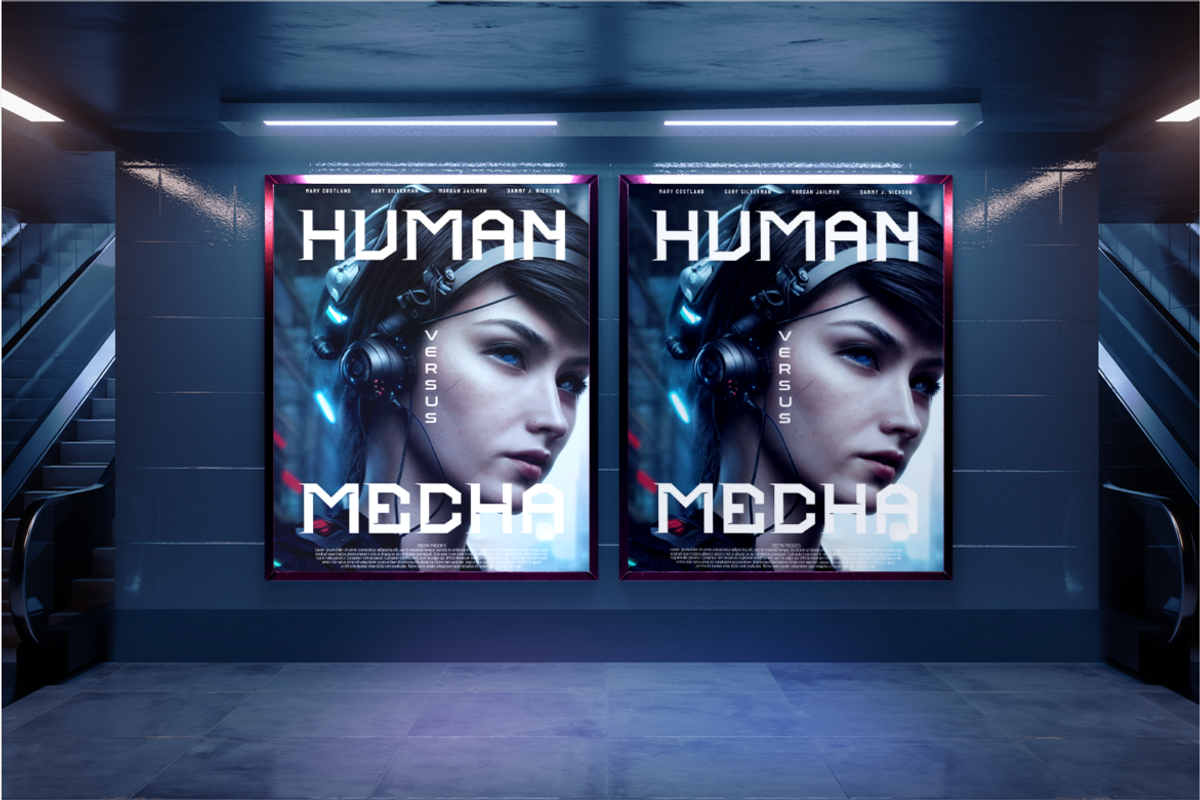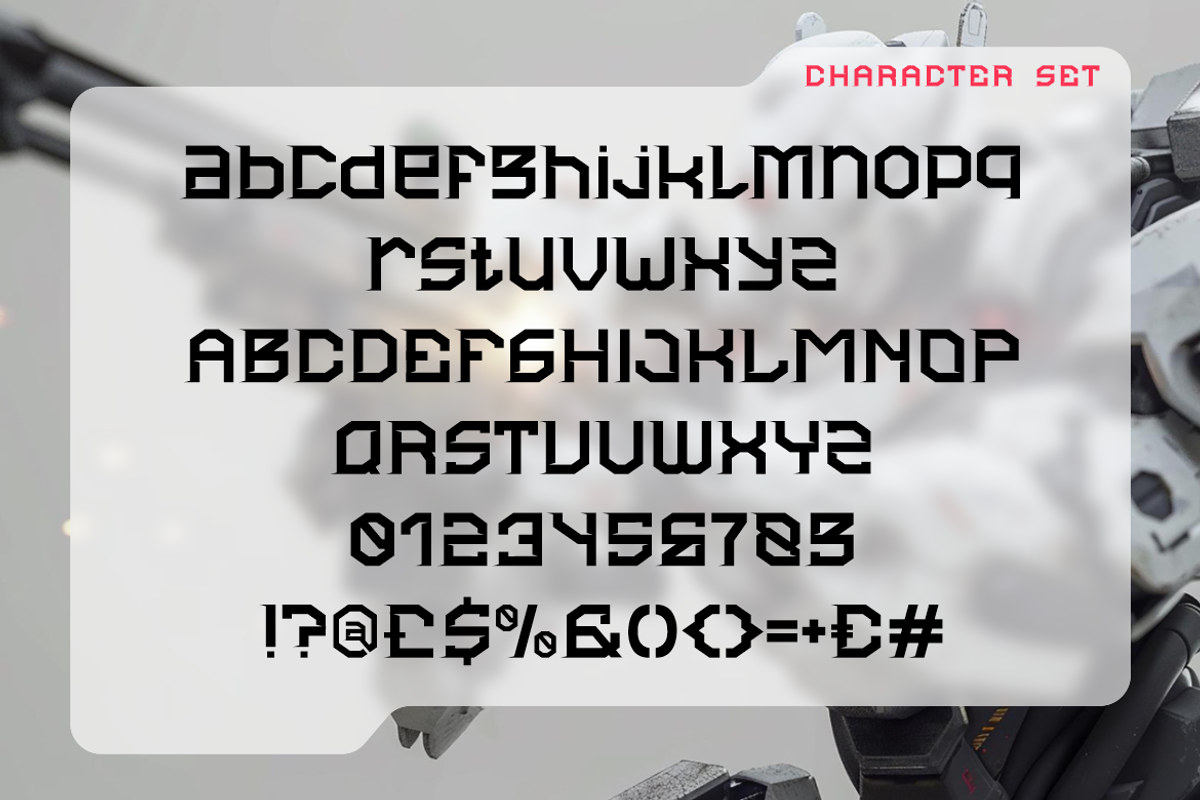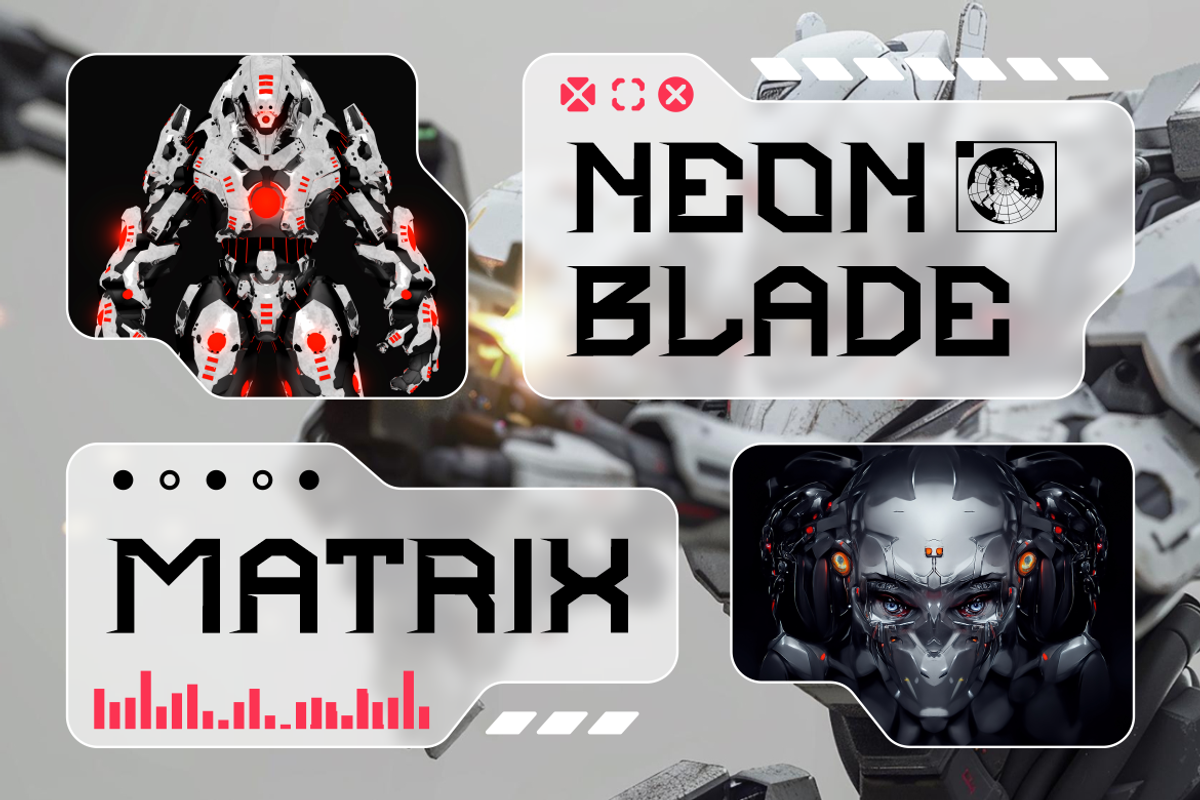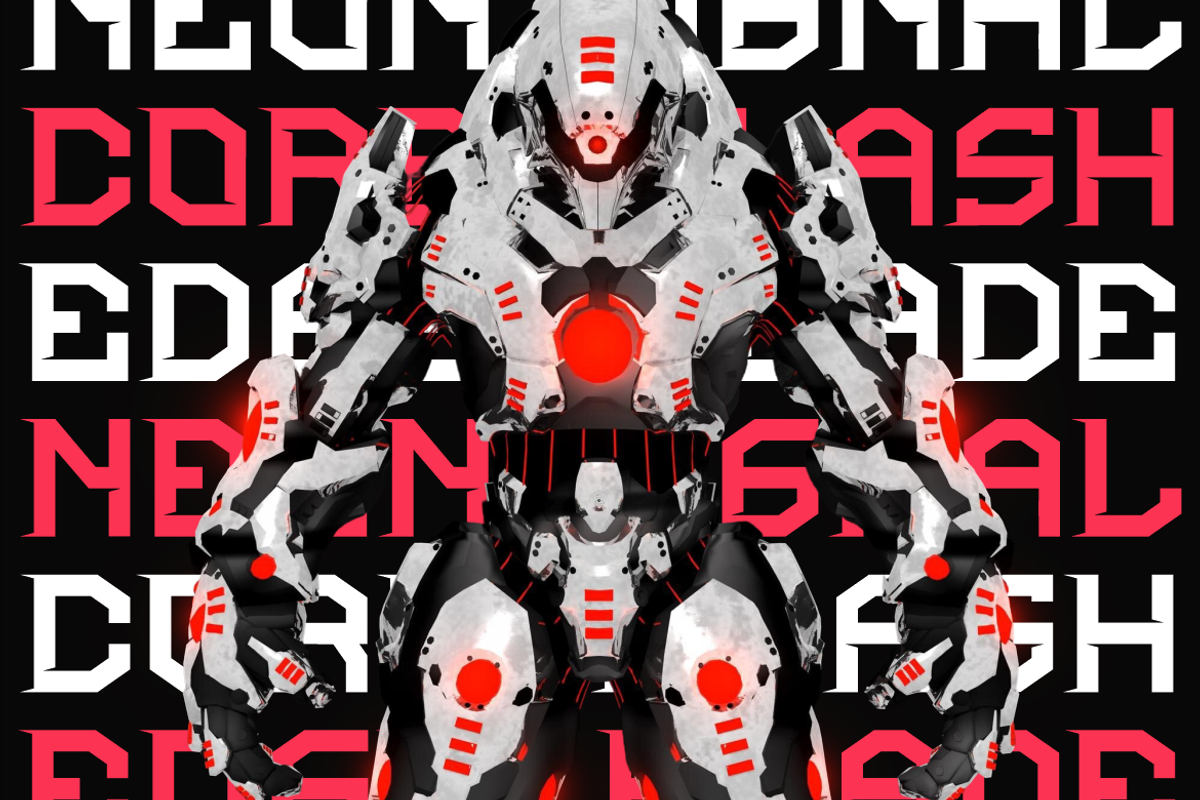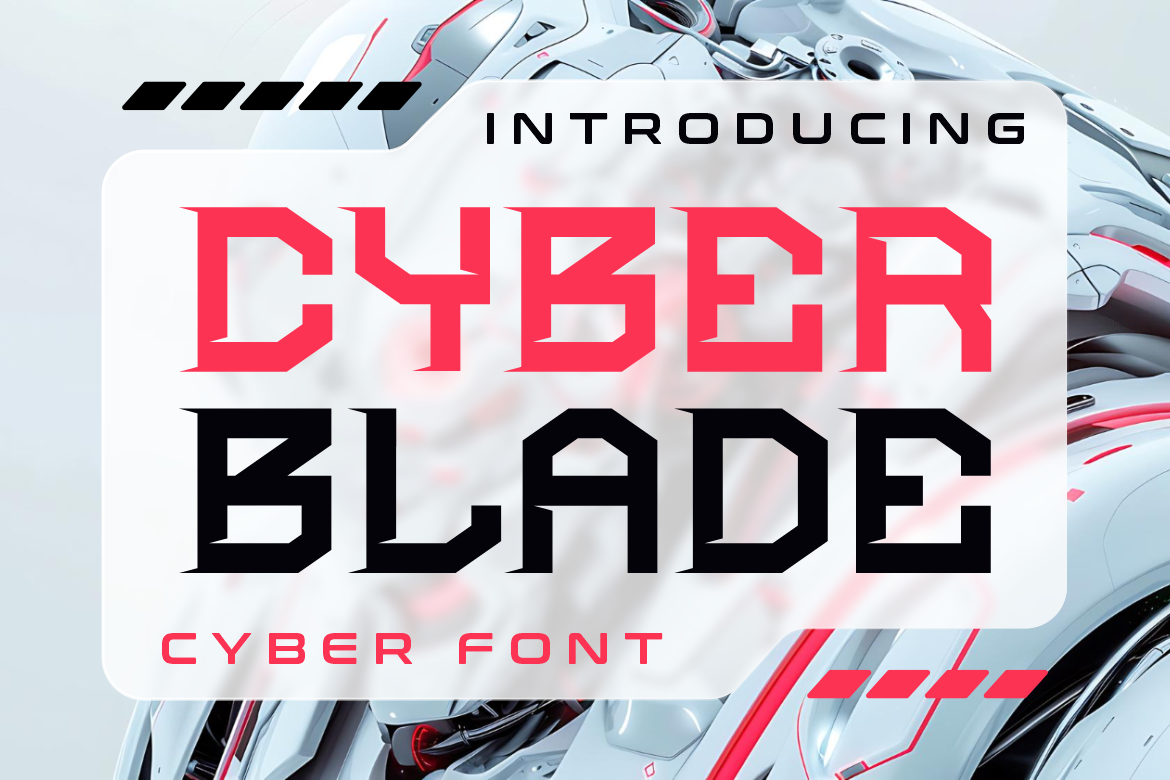
Cyber Blade Scifi Futuristic Font
Cyber Blade is a high-impact futuristic display font engineered for cybernetic visuals and cutting-edge aesthetics. Featuring angular letterforms with precision-cut terminals and blade-like strokes, this font embodies the spirit of high-tech evolution. The character set is inspired by sci-fi weaponry, robotics, and digital warfare — each glyph carries sharp edges, symmetrical cuts, and mechanical flair. The uppercase and lowercase styles are both aggressive and readable, making it perfect for high-tech branding, esports logos, tech posters, and virtual event titles. The dual-tone style in red and black evokes an energetic and dynamic visual hierarchy, while the layout supports layered applications and cyber-themed overlays.
Ideal for film titles, tech packaging, or UI-based interfaces, Cyber Blade offers a sleek and powerful personality to any project. Its futuristic forms complement sci-fi cover art, AI product campaigns, and mecha-related content. The font’s stylized structure ensures every letter looks modular and modern while maintaining readability. It's not just a font — it's a digital weapon for creators in the worlds of gaming, streaming, and beyond. For projects where visual edge and innovation matter, Cyber Blade is the sharpest choice.